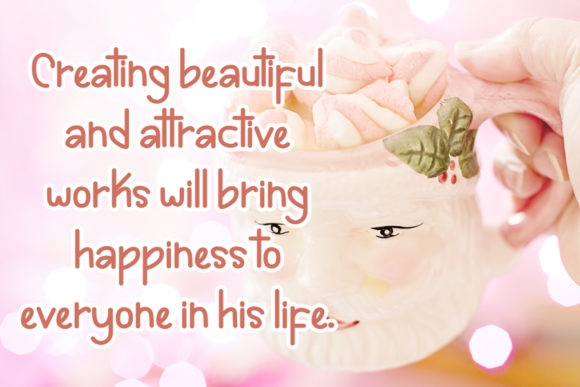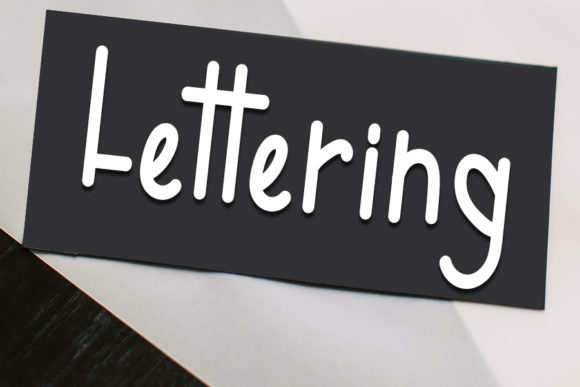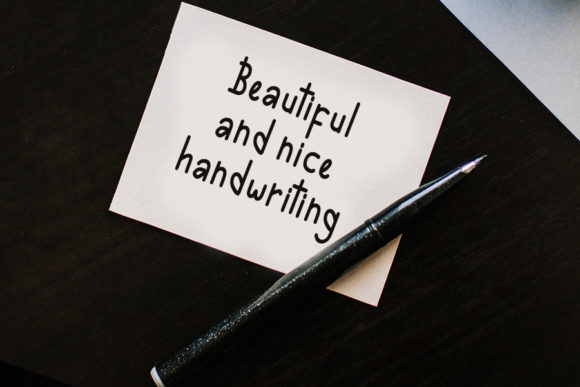
Handcraft Font
About Handcraft Font
Handcraft is a clean and simple handwritten font. It is suitable for creating any branding, product packaging, invitation, quote, t-shirt, label, poster, logo that you wish to develop.